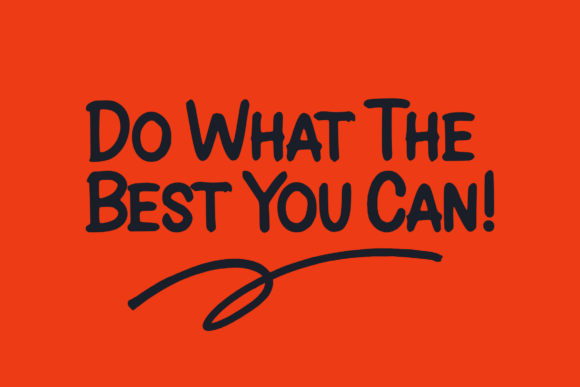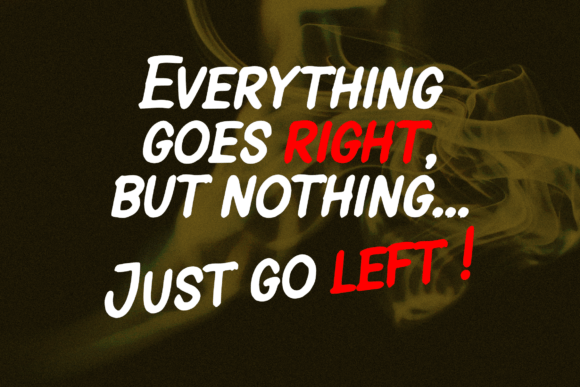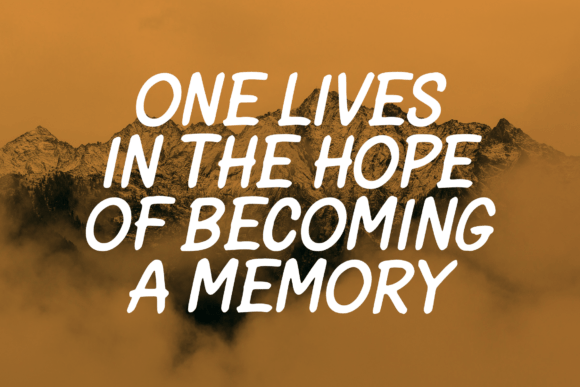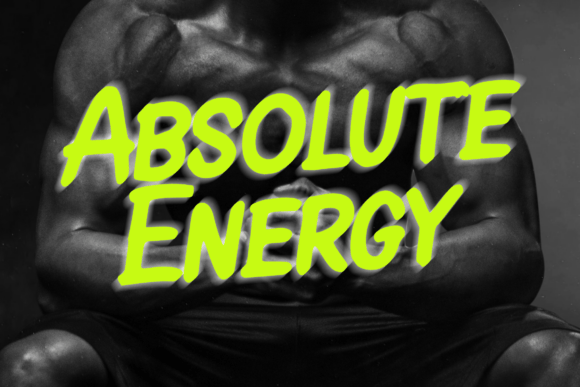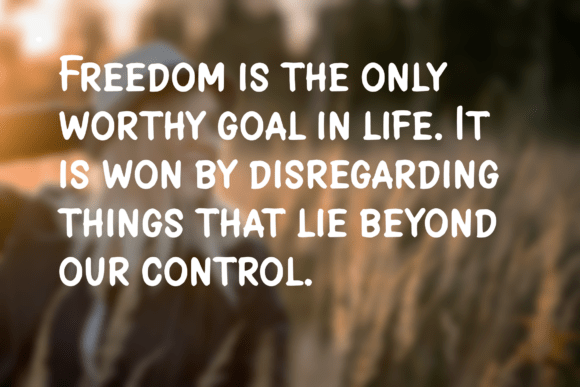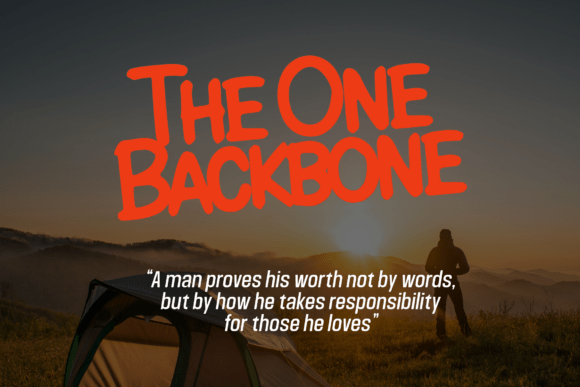
Introduction to Panther Brush Font
Energetic and bold, Panther Brush is a dynamic sans-serif brush font designed for impact.
Its powerful strokes and organic texture make every word leap off the page with confidence Available in Regular and Italic, itโs ideal for designs that demand strength and motion.
Key Features of Panther Brush Font